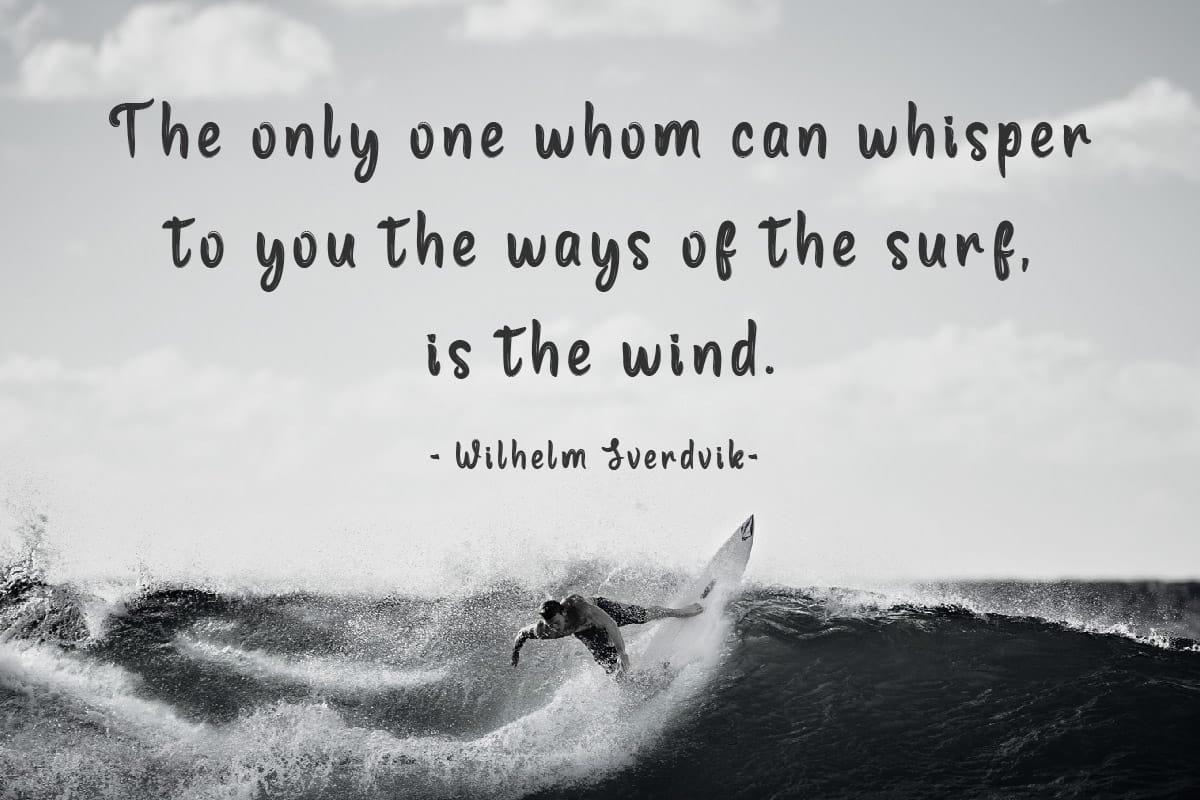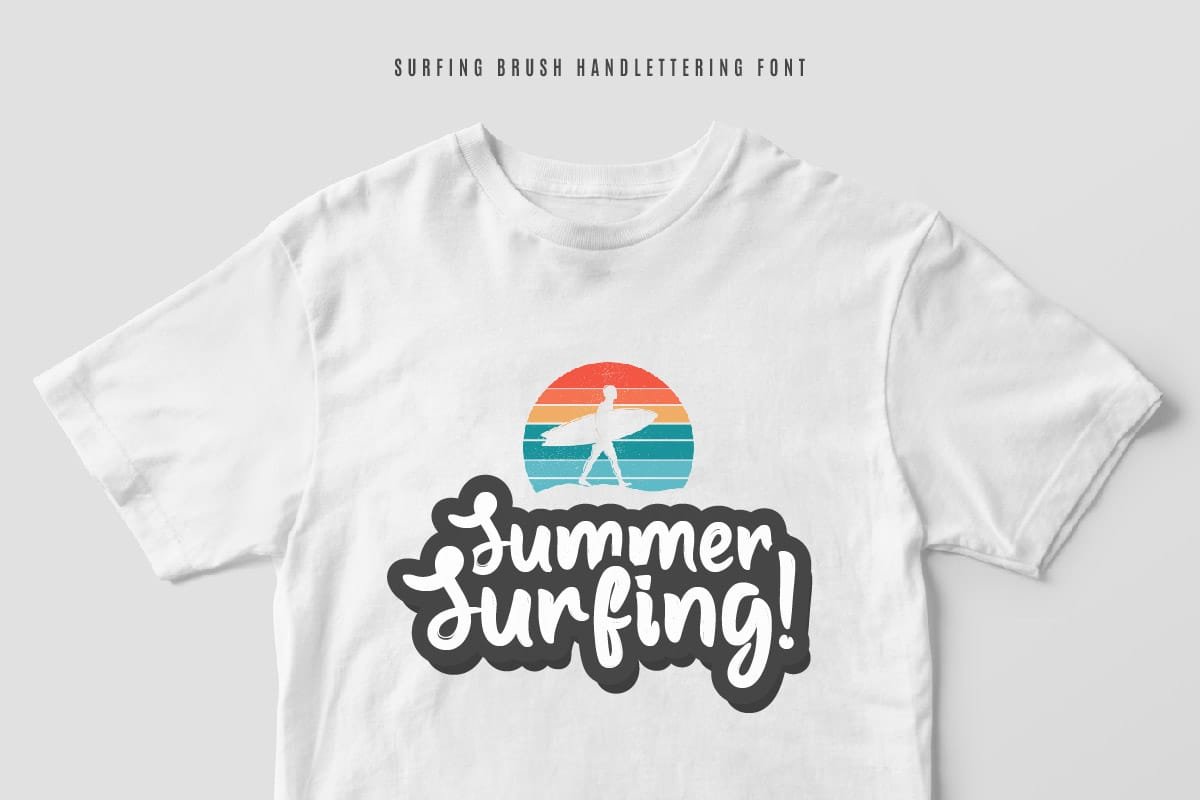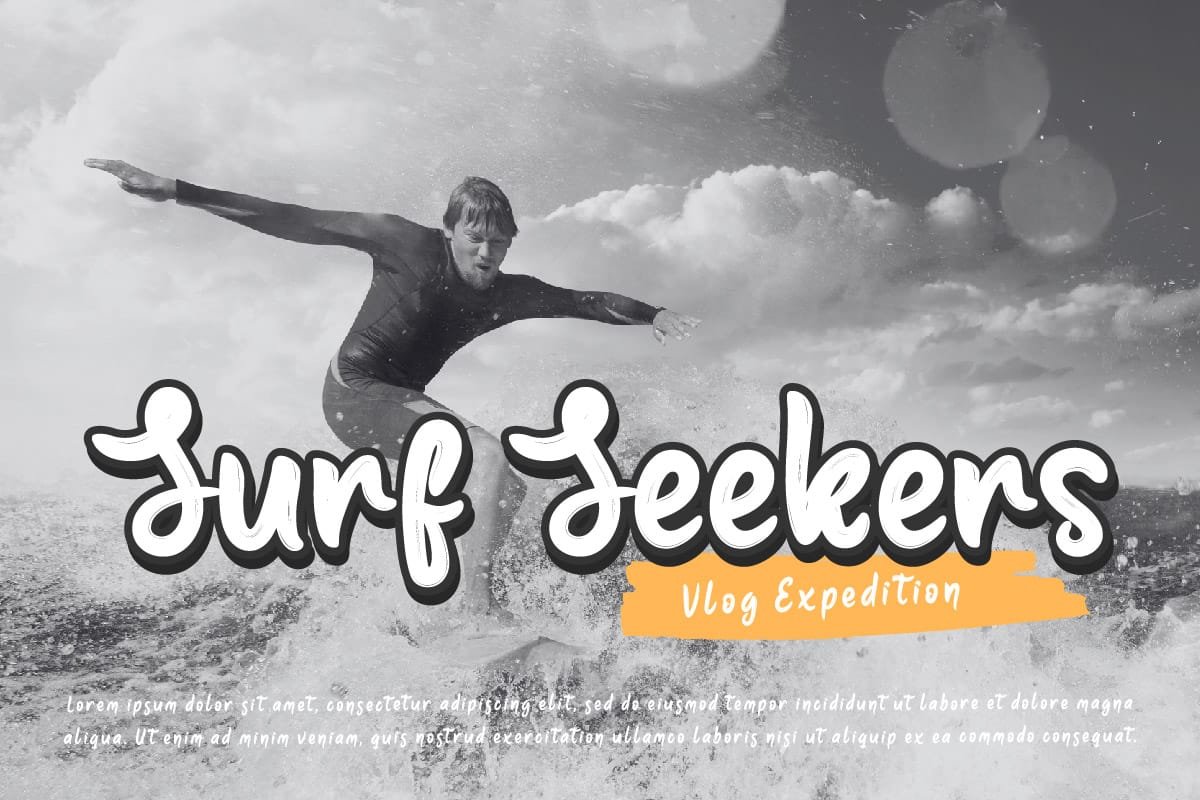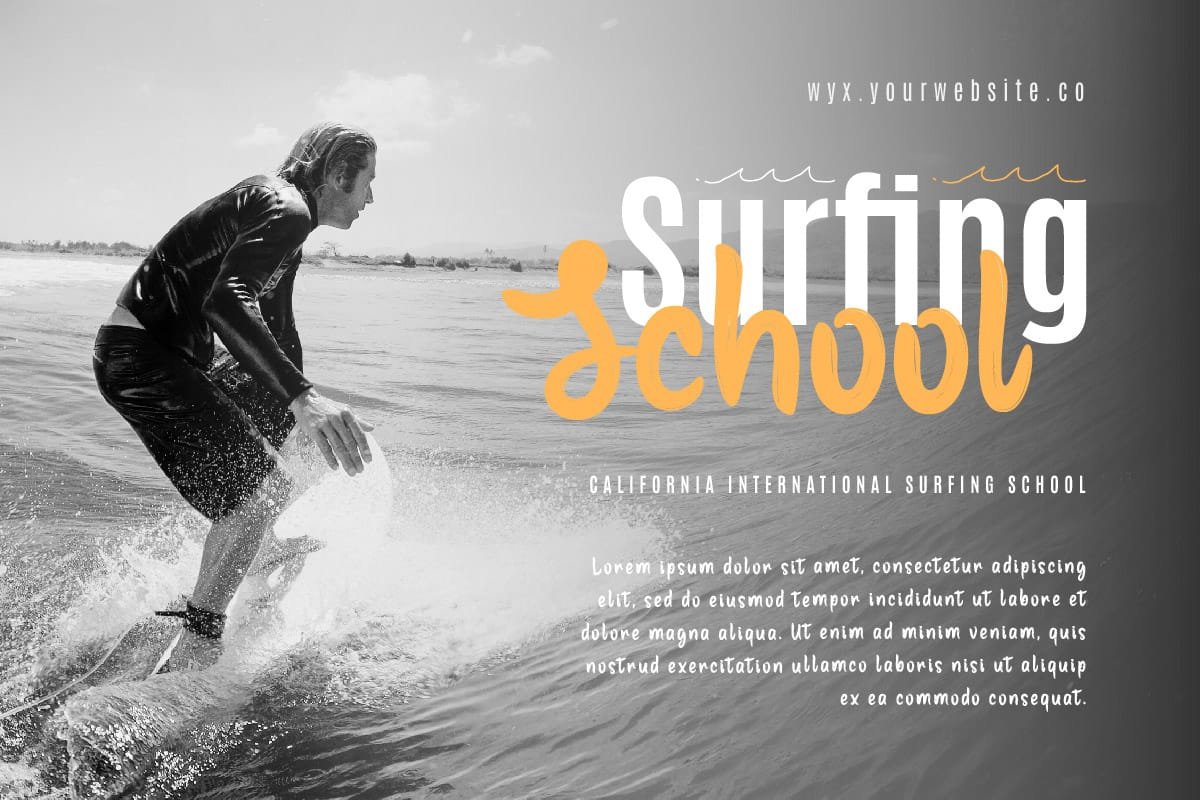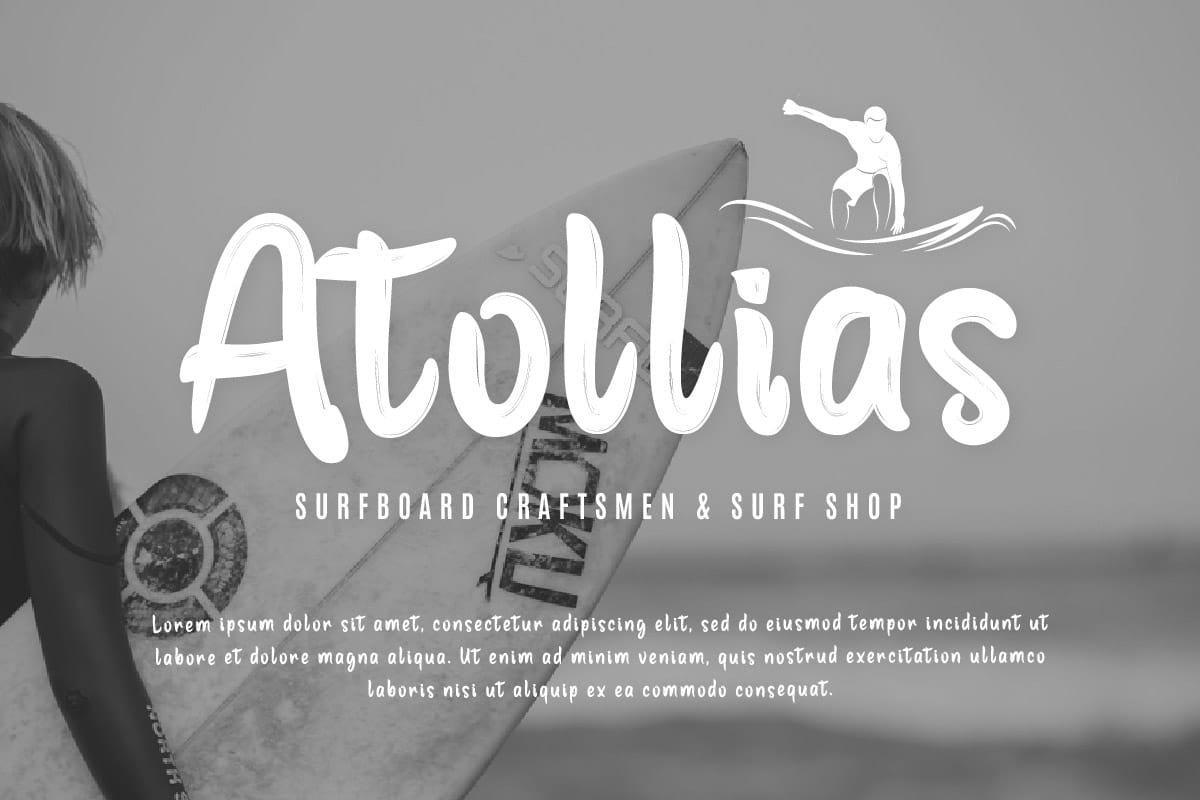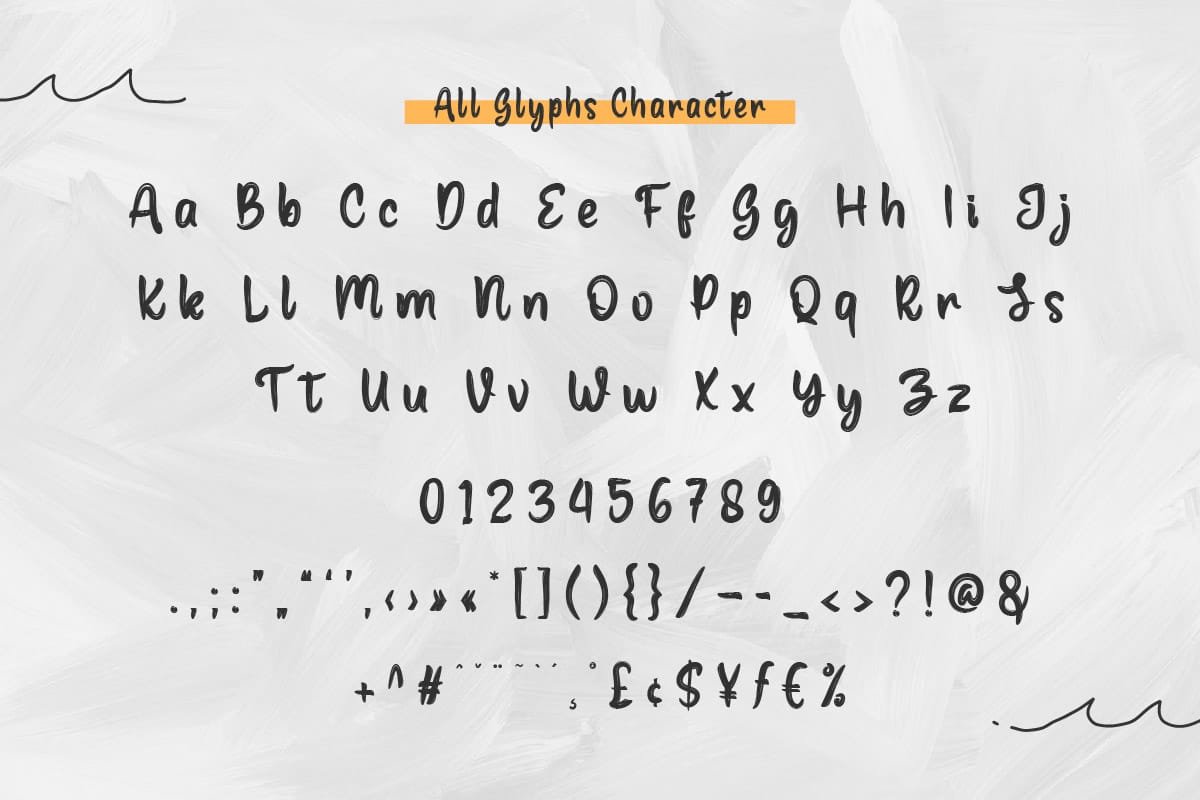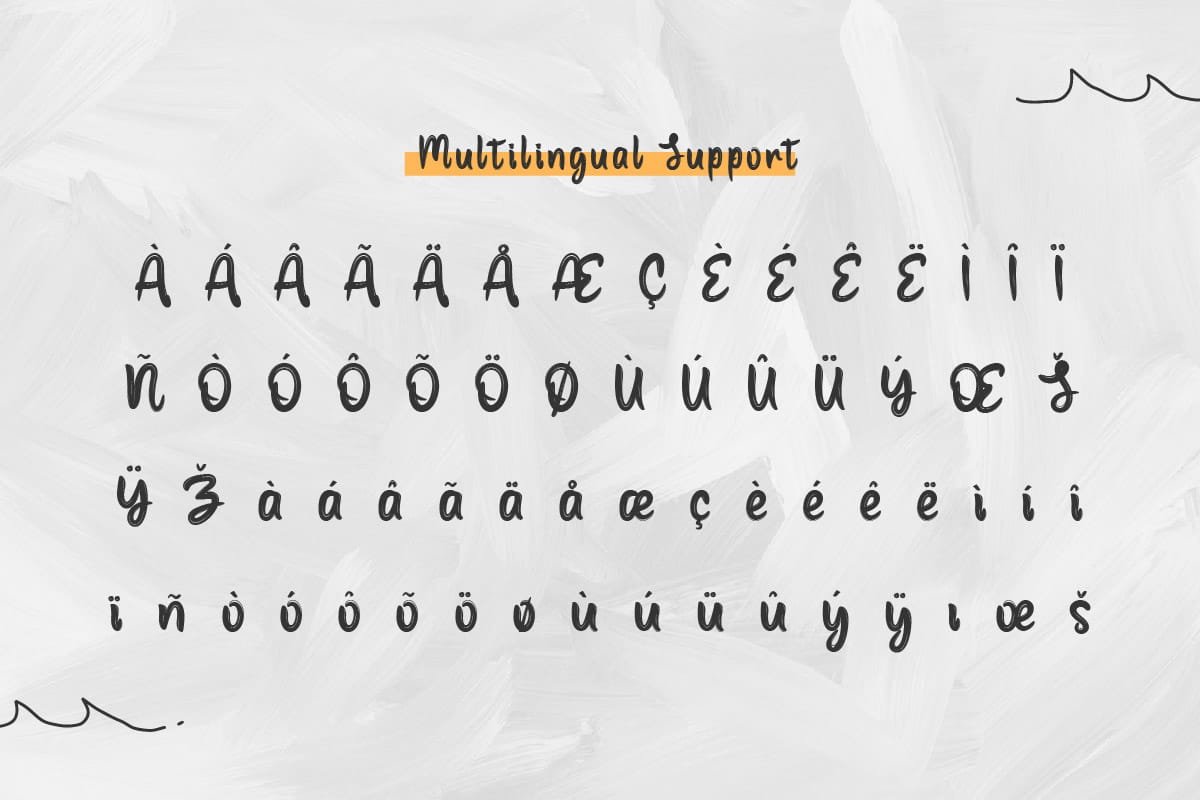
Surfing – Brush Handwritten Font
Surfing is a brush handwritten font that captures the spirit of adventure. Its bold, dynamic characters are perfect for designs that require a touch of excitement and energy. Whether you’re creating a logo for an outdoor brand or a headline for a travel blog, Surfing adds a touch of adventure that is sure to captivate your audience.